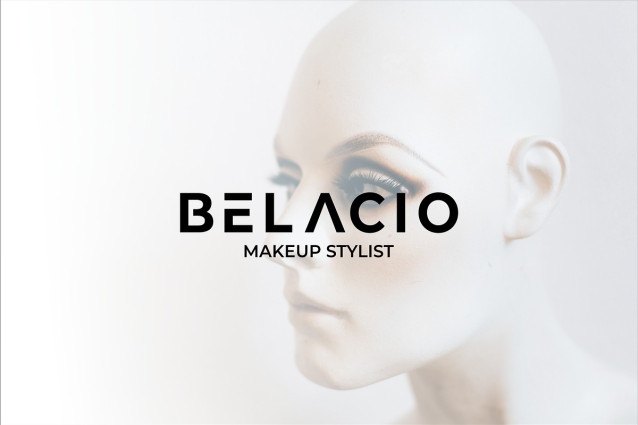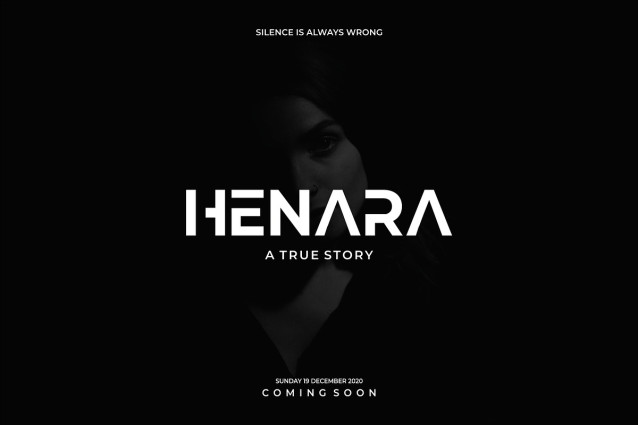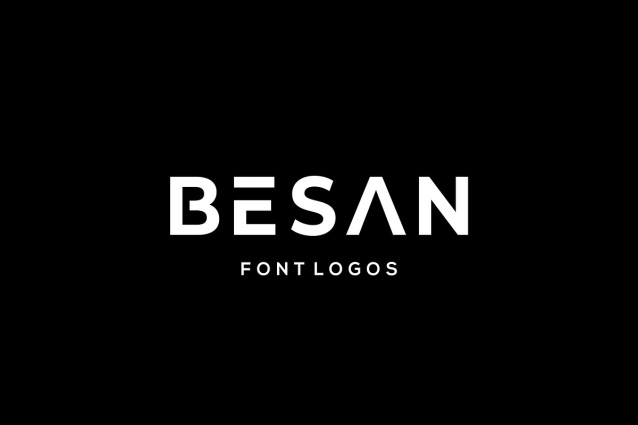
Besan Font
Besan Font is a new font for design of minimalistic logos. The font is suitable for creating word marks, titles, taglines. This font is perfect for those of you who like a minimalist and clean design